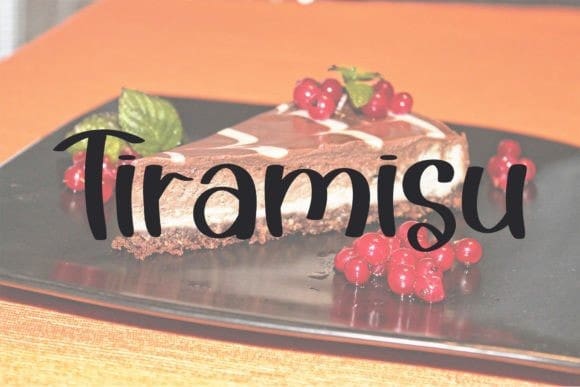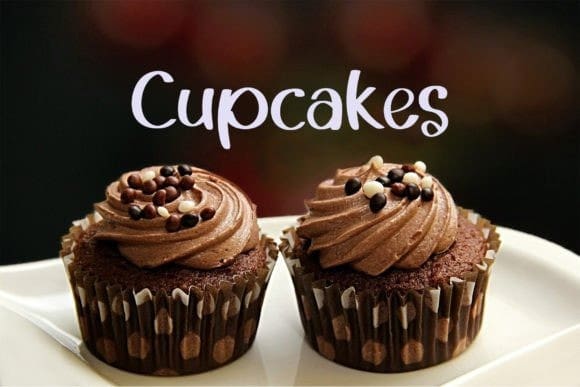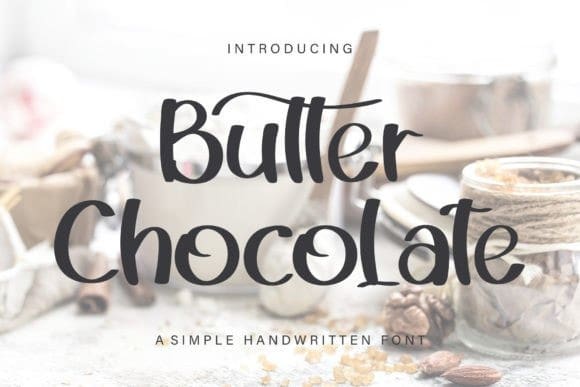
Butter Chocolate Font
Butter Chocolate Font, is a neat and beautiful handwritten font described by an elegant touch, perfect for your favorite projects. Fall in love with its incredibly distinct and timeless style, and use it to create spectacular designs!